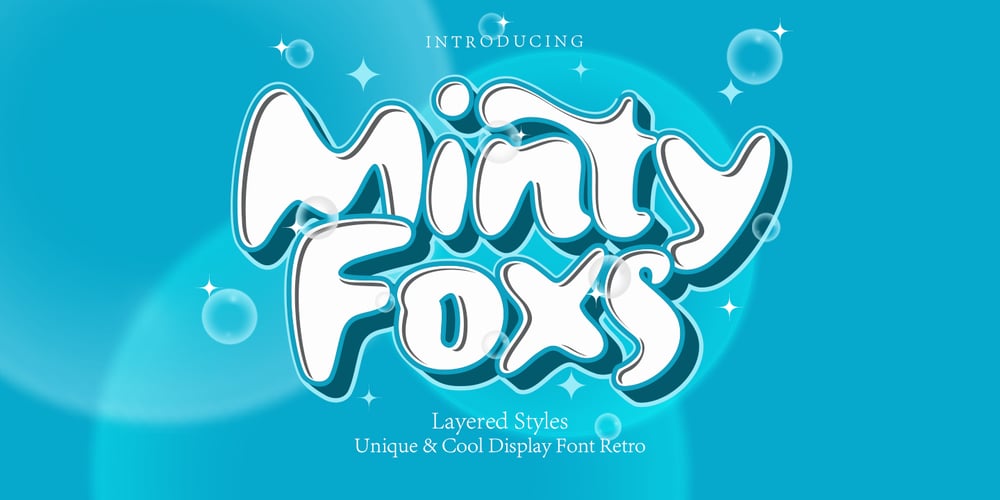
Minty Foxs Font Family was designed by Joelmaker and published by Joelmaker. Minty Foxs contains 9 styles and family package options. About the ProductMinty Foxs layered FontMinty Foxs is a layered fonts that appear with various styles such as Extrude, Engrave, Shadown and outline version, This font comes with an bold and shadow effects. this font to complement your perfect vintage design or Retro! a collection of letters inspired by retro 70s typographic designs with original handwriting. perfect for branding, logos, stickers, posters, vintage designs, screen printing on t-shirt, wall art and more!Minty Foxs includes: Stylistic Alternates, Ligatures & Stylistic Sets. You can choose an alternative style, Stylistic Sets per letter and Glyphs. By using Glyph in software programs like Photoshop, Illustrator and CorelDraw X version. You can also access this in many other programs by using your character map (Windows) or font book (Mac). Let’s play with “Mint Foxs” for the beauty of your next design project.